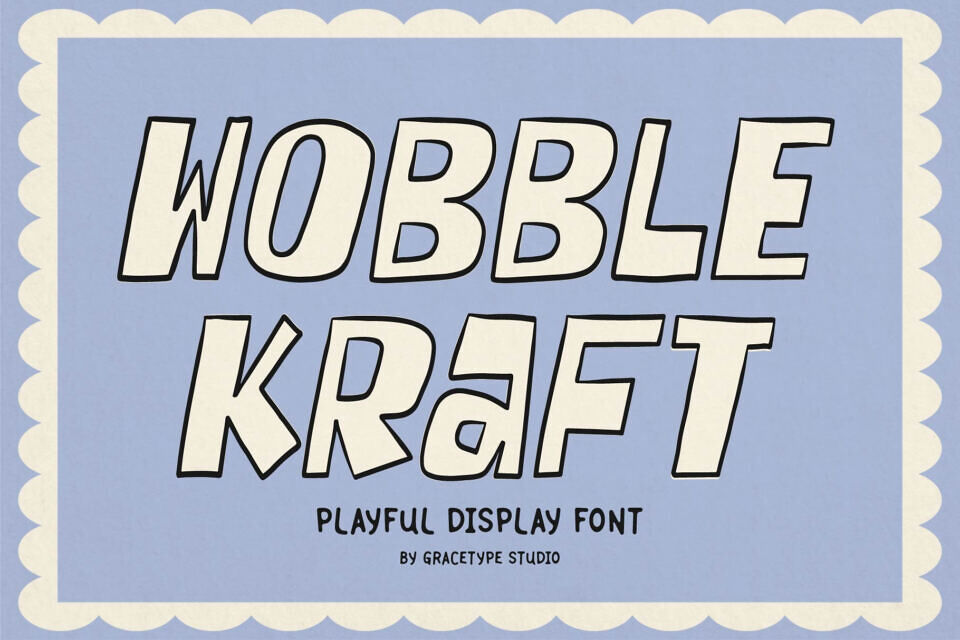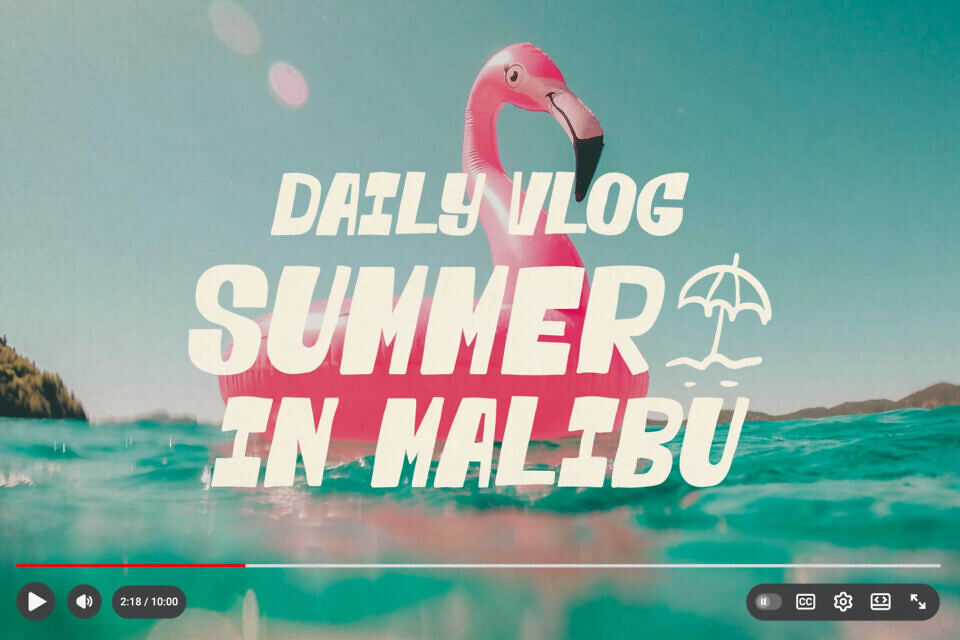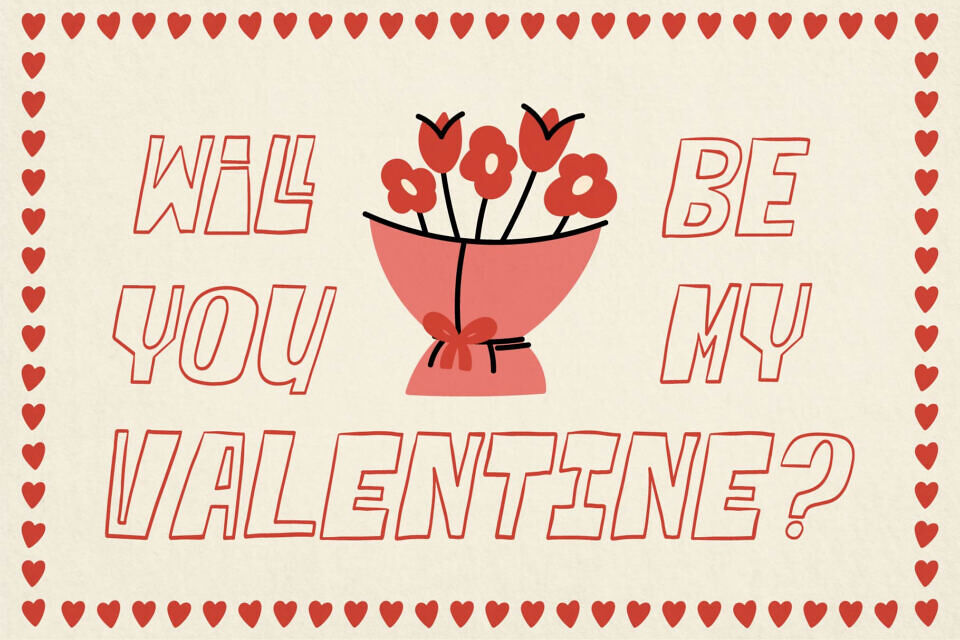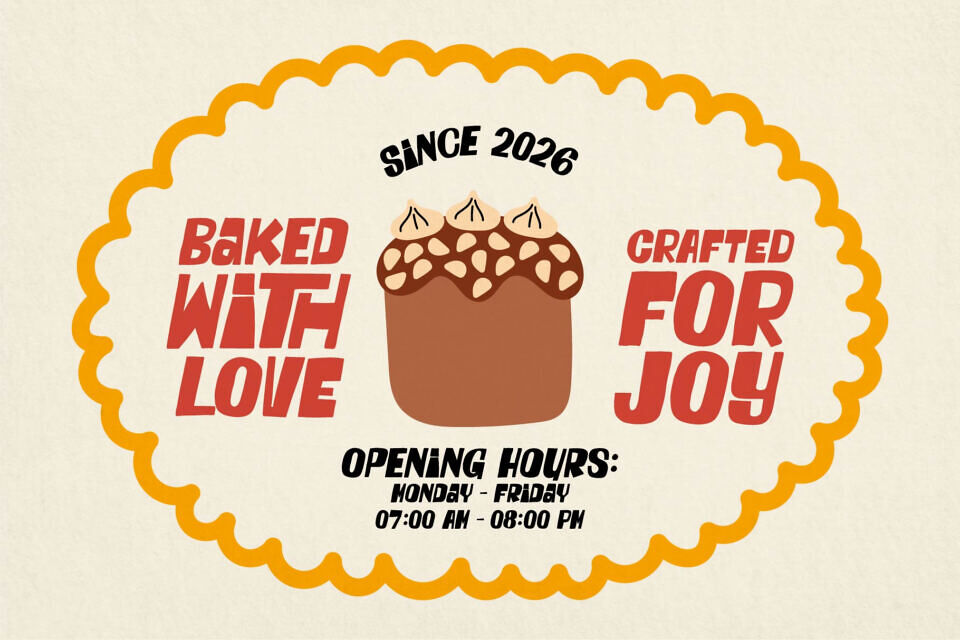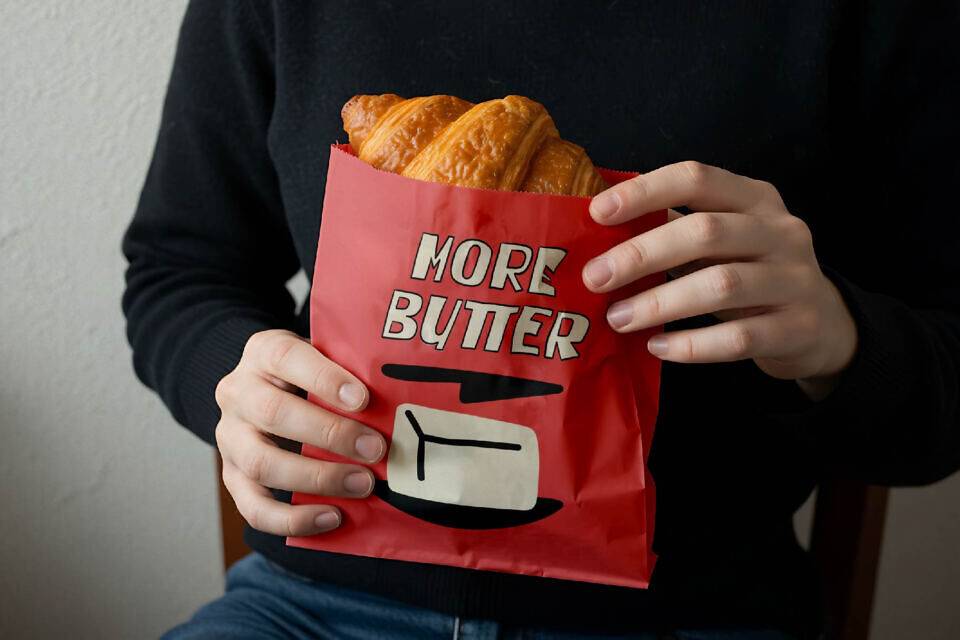
Wobble Kraft is a playful, hand-drawn display font designed by Gracetype Studio. With its quirky, lighthearted aesthetic, it is ideal for creative projects such as branding, product packaging, posters, and invitations.
The family includes both a standard version and an outline style, providing versatile options for adding a fun, whimsical touch to your designs.